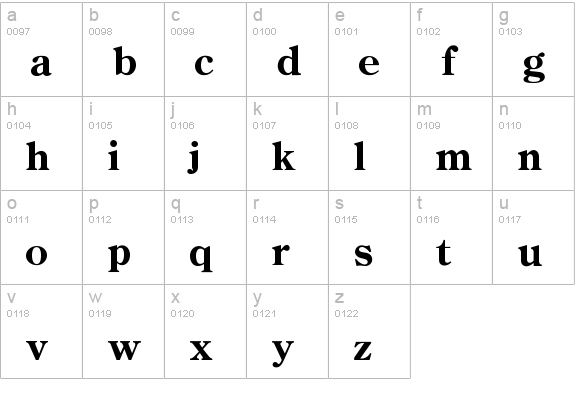
CenturyOldstyleICGBold Font Details
CenturyOldstyleICGBold font is a timeless and elegant typeface that exudes a classic charm with a modern twist. Its bold and sturdy letterforms make a powerful statement while maintaining a sense of sophistication. Whether used for headlines, logos, or branding materials, this font commands attention and leaves a lasting impression. The CenturyOldstyleICGBold font is perfect for designers looking to add a touch of vintage flair to their projects. Its versatility allows it to be used in a variety of design applications, from print materials to digital media. With its clean lines and distinctive style, this font is sure to stand out and enhance any design project. Best of all, the CenturyOldstyleICGBold font is available for free download at FontsMarket.com. This means that you can easily access this high-quality font without any cost, making it a valuable addition to your font library. Don't miss out on the opportunity to elevate your designs with the CenturyOldstyleICGBold font today!